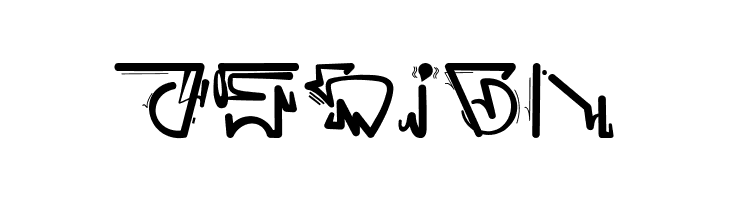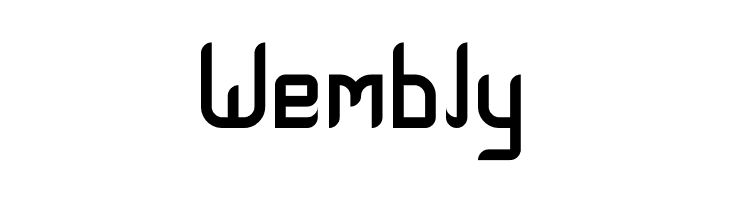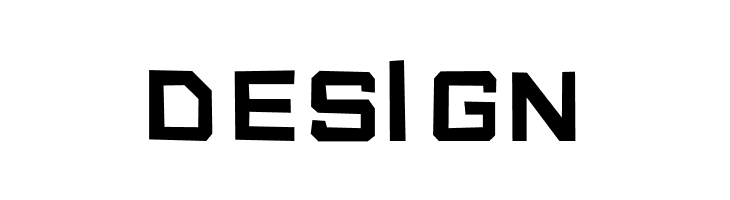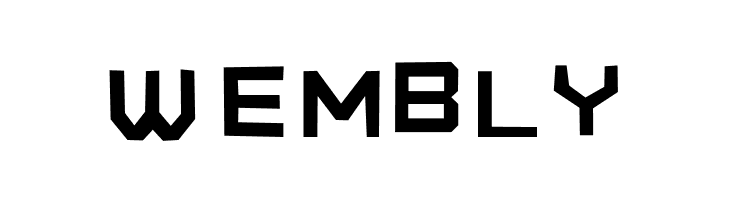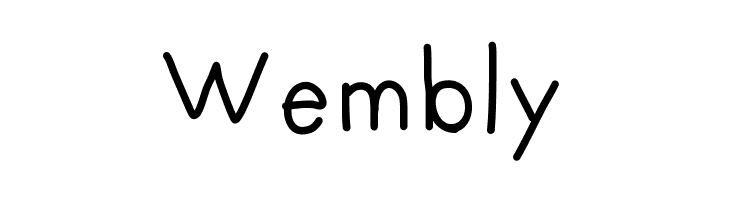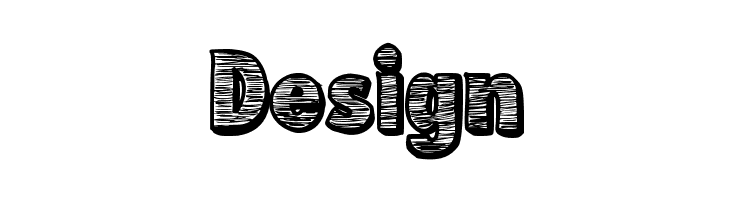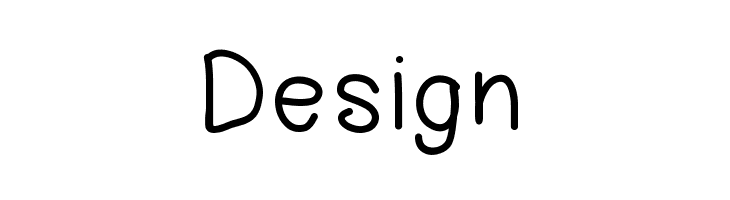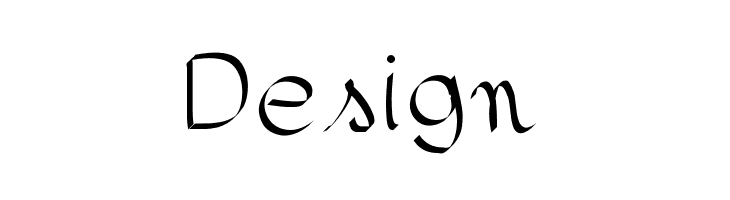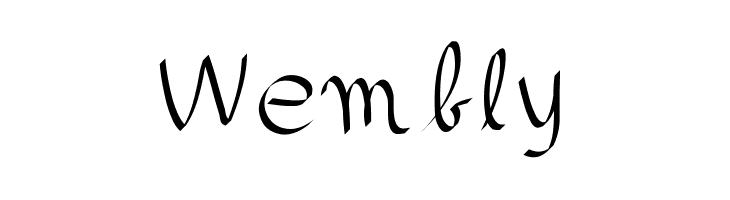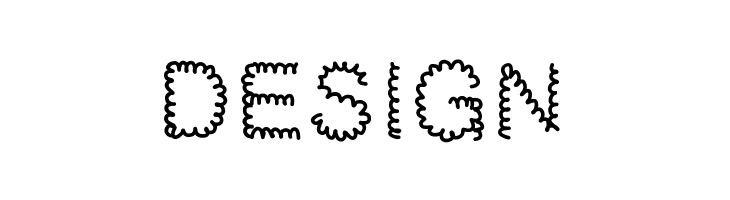
A bold, playful font with cartoonish, exaggerated characters.
A playful, distressed font with jagged edges and a bold appearance.
A bold, playful font with a distressed, grunge-like texture.
A bold, angular font inspired by ancient runic alphabets, perfect for historical or fantasy themes.
A playful, handwritten font with rounded edges and consistent stroke width.
A playful, casual handwritten font with smooth, flowing lines and slightly irregular shapes.
A futuristic and abstract font with sharp angles and smooth curves.
A futuristic, geometric font with sharp angles and a bold presence.
A futuristic font with geometric and fragmented design elements.
A futuristic, abstract font with geometric and cryptic character designs.
A bold, hand-drawn font with a textured, sketch-like appearance.
A playful, handwritten font with rounded, consistent strokes.
A playful, handwritten font with a bold and casual style.
A bold, textured font with a playful, distressed appearance.
A bold, brush-like font with dynamic, hand-drawn strokes.
A playful and casual handwritten font with fluid, connected strokes.
A wavy, zigzag font with a dynamic and playful style.
A modern, dashed line font with a playful and rhythmic style.
A playful, decorative font with bold, rounded characters featuring unique internal patterns.
A decorative font with outlined, diagonally striped characters.
A modern, bold outline font with rounded letterforms and consistent stroke width.
A whimsical and playful font with curly, flowing letterforms.